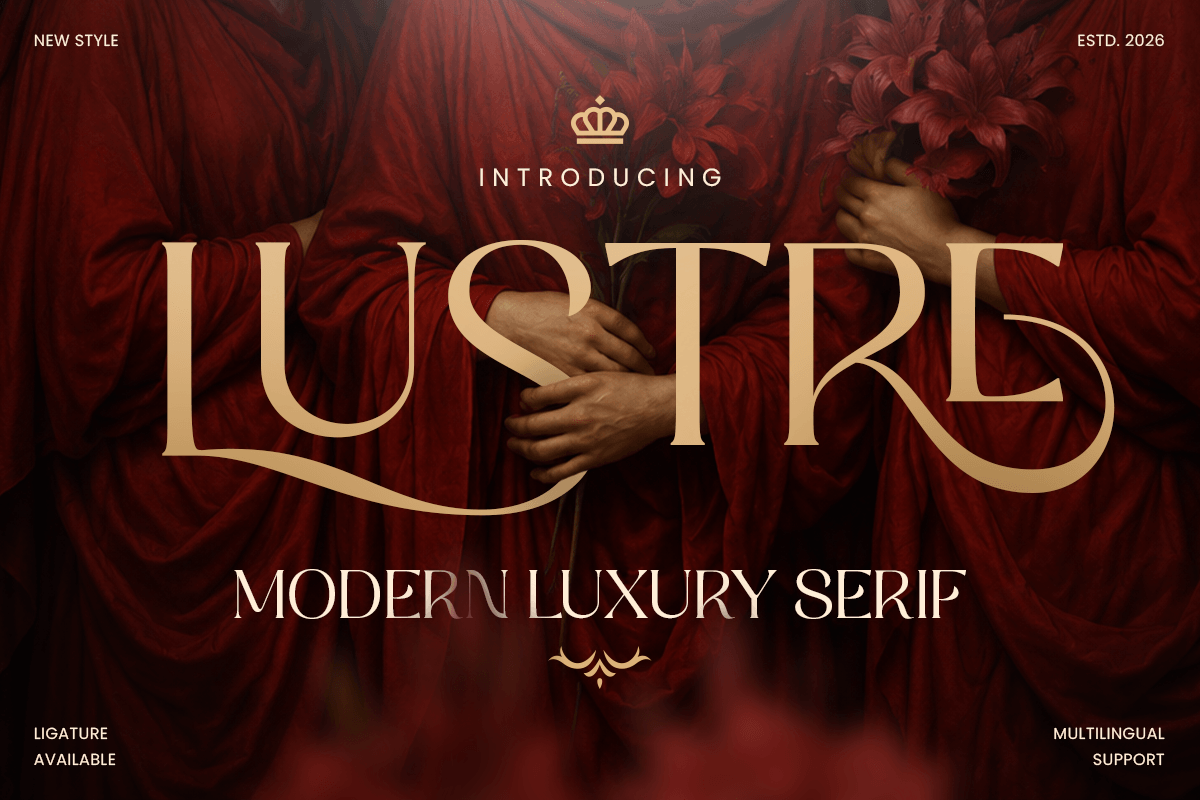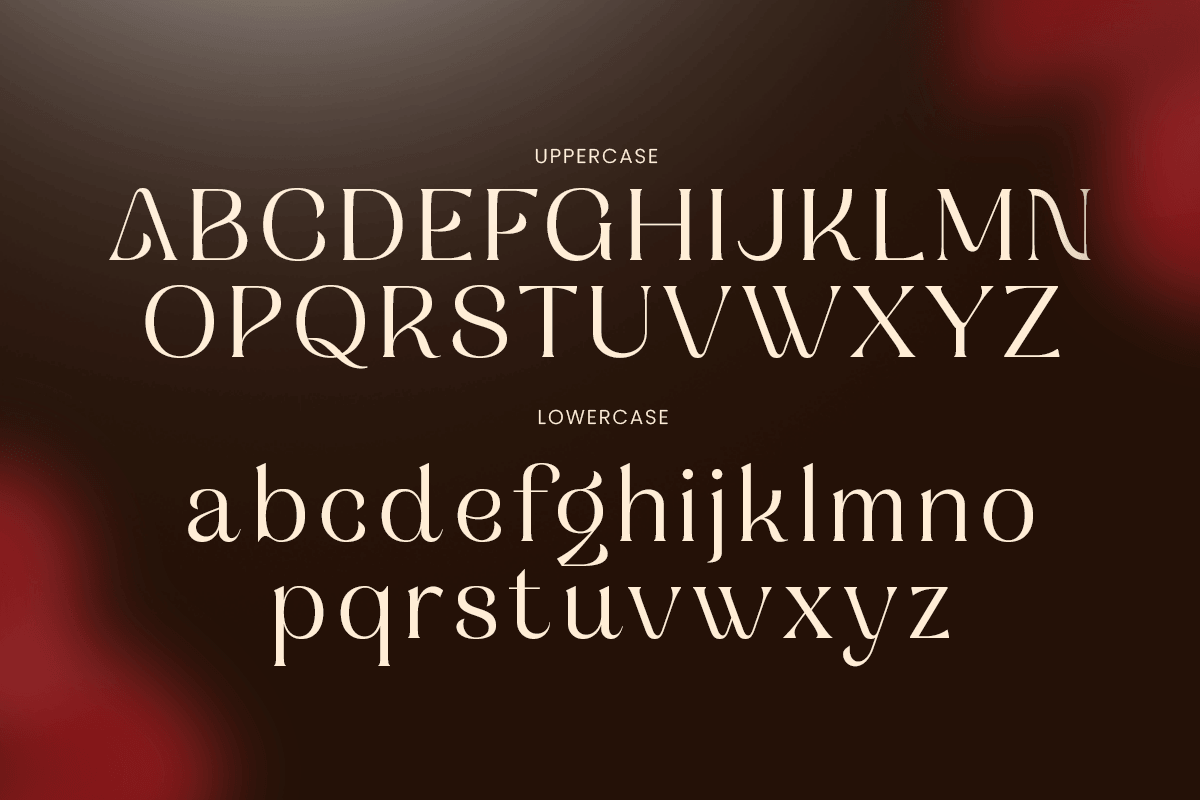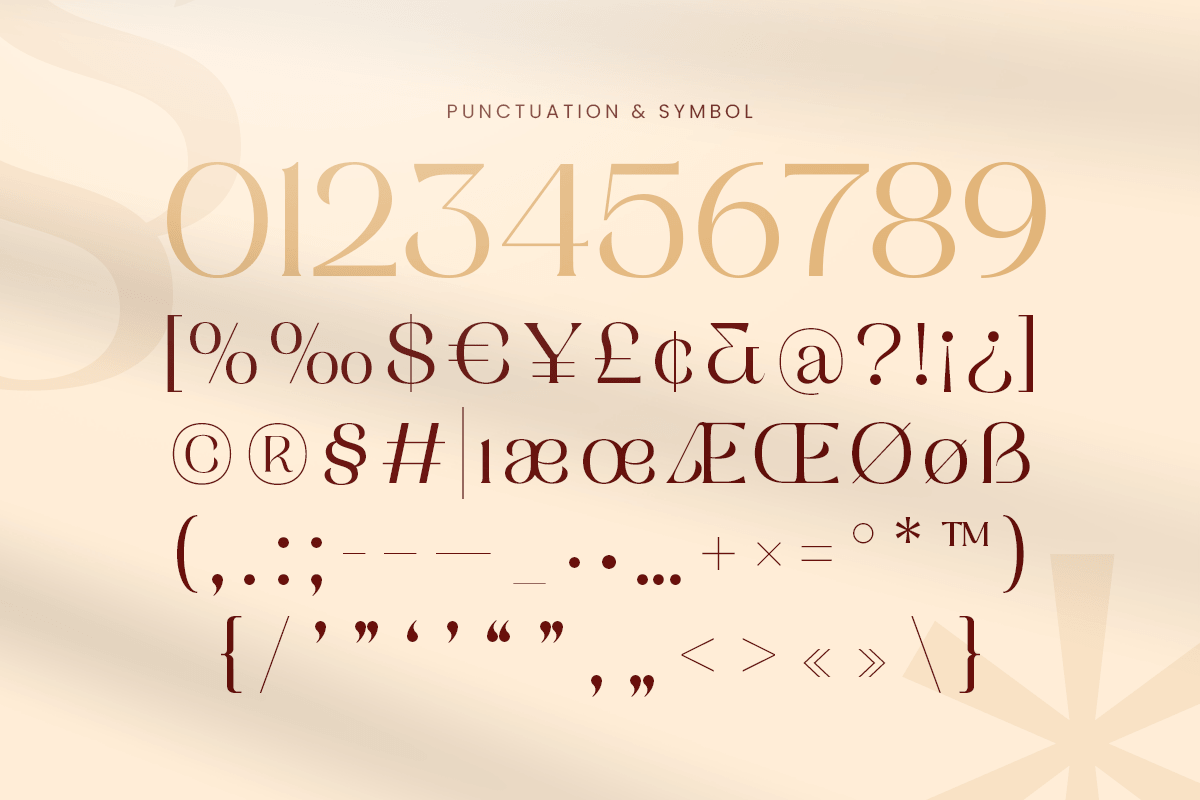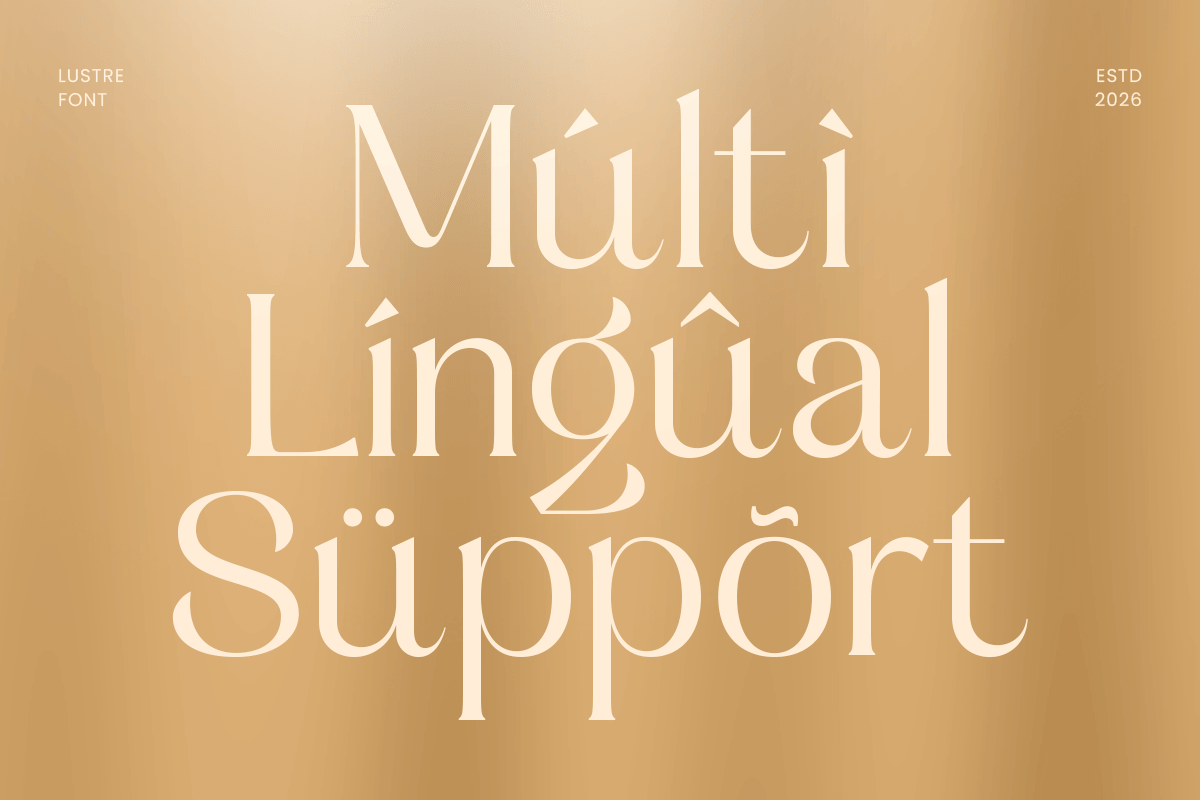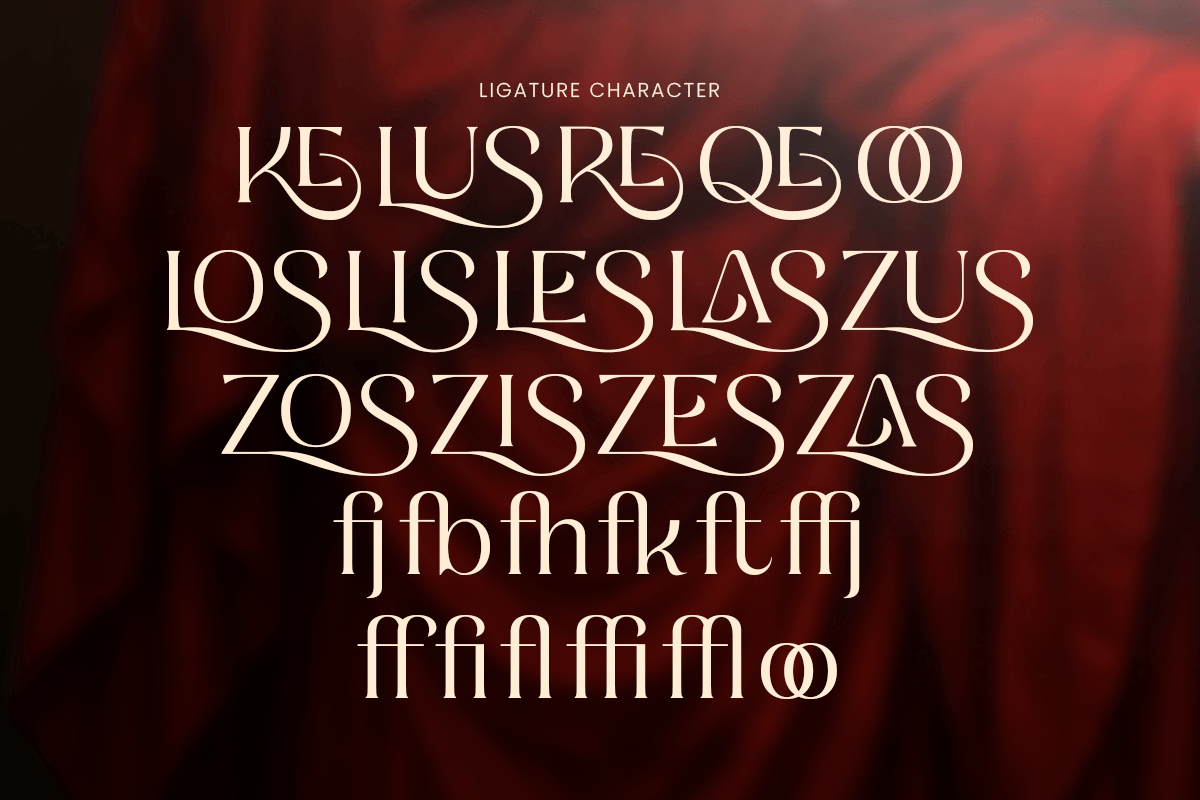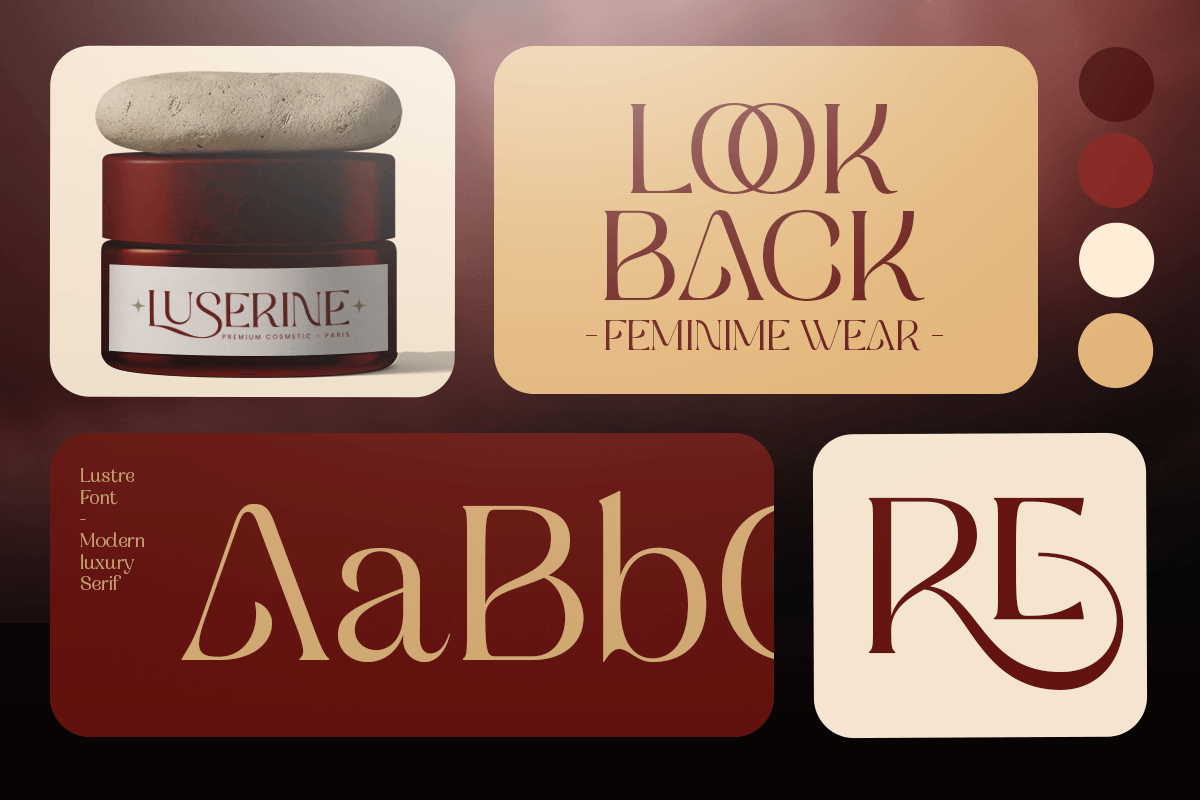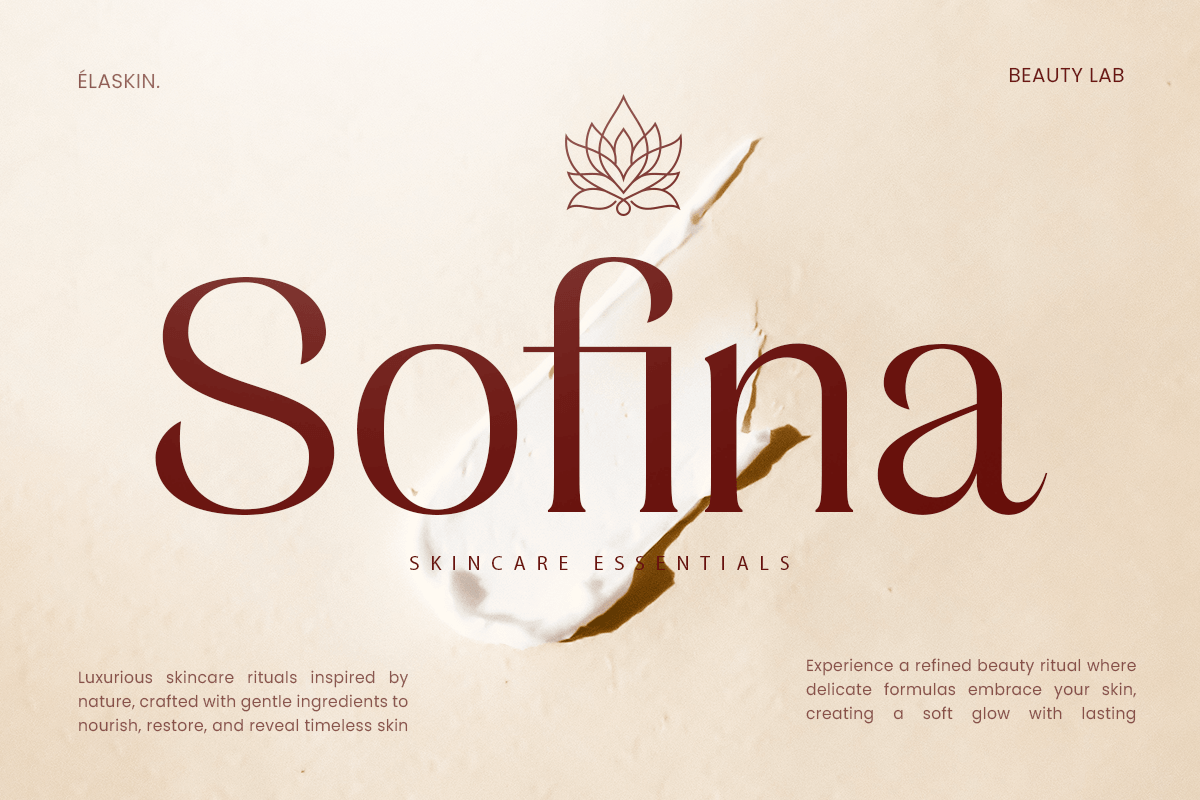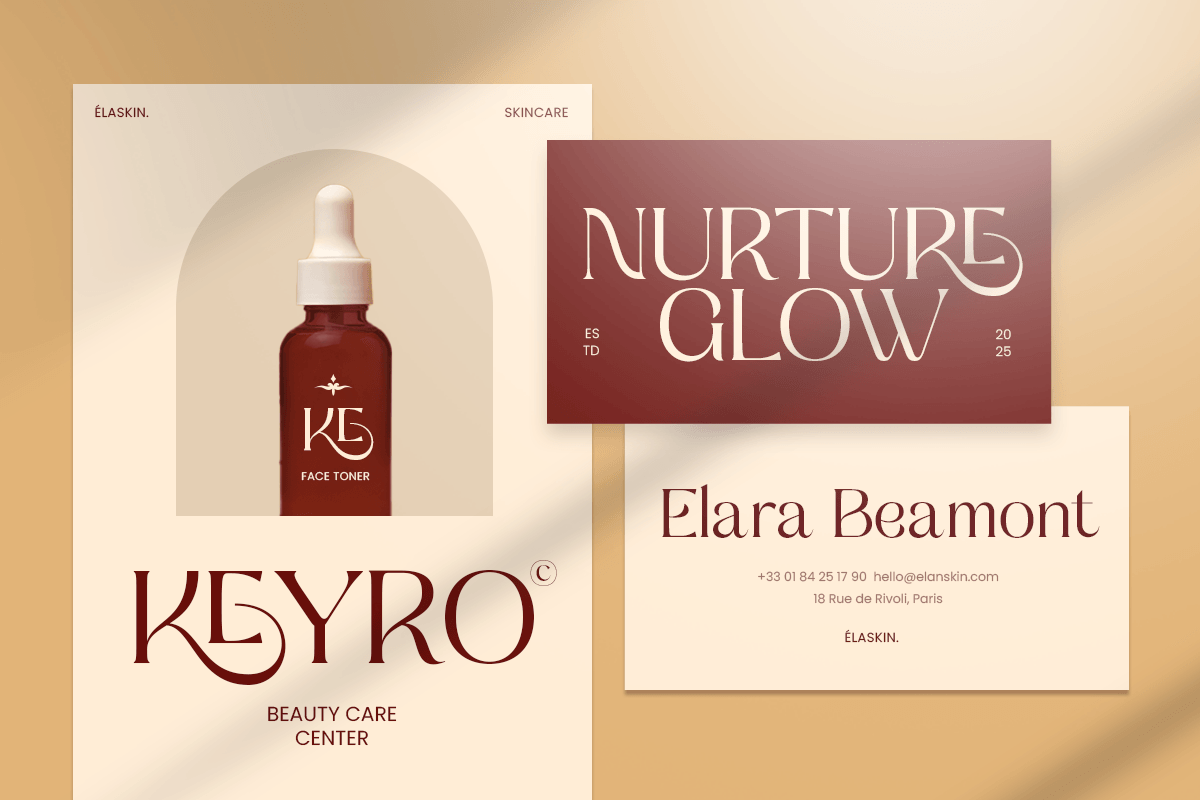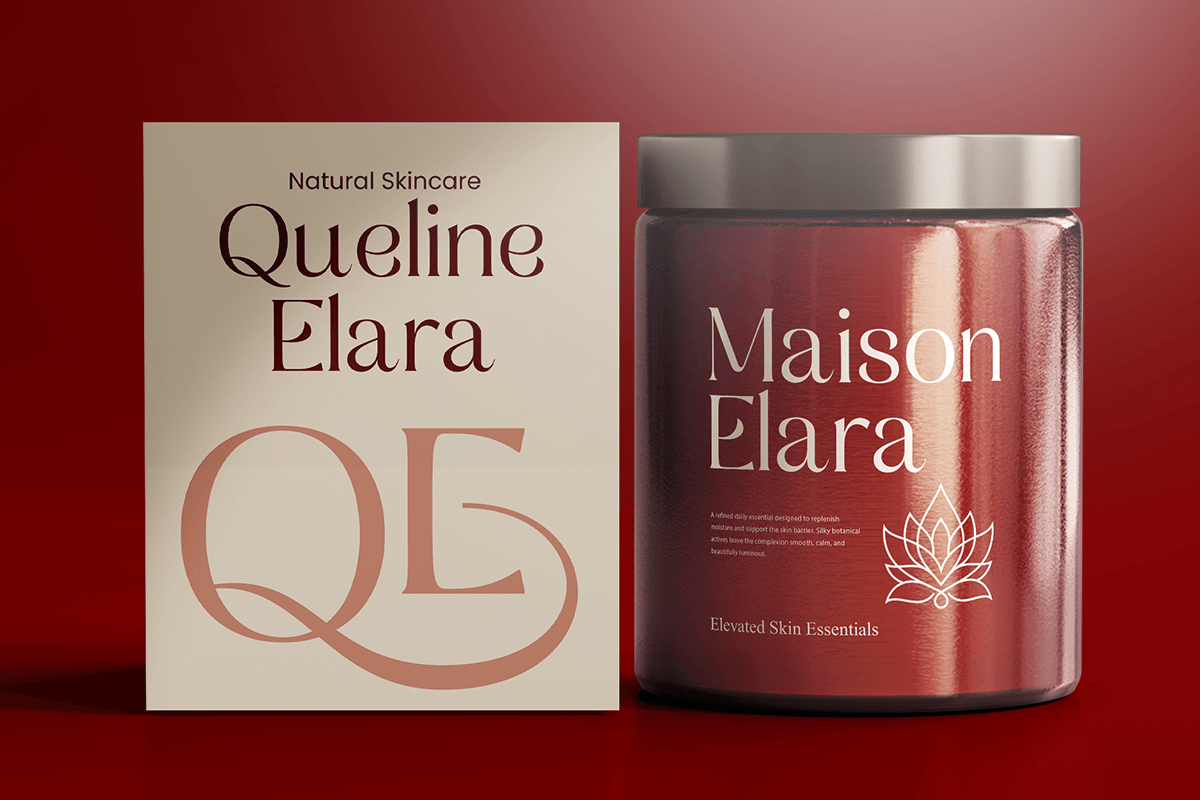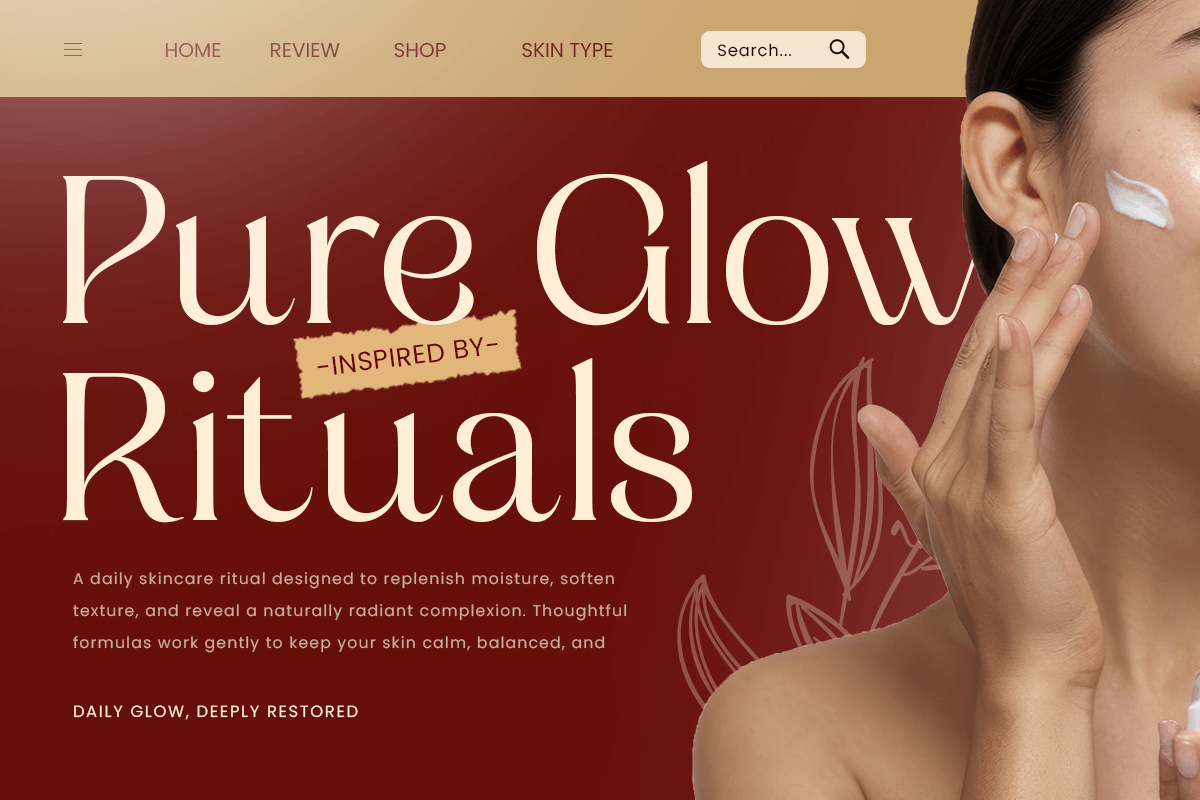
Lustre - Luxury Serif Font
Lustre is a Modern Luxury Serif Font that combines timeless elegance, sophistication, and contemporary style. With its refined serif details and graceful letterforms, Lustre creates a premium and stylish appearance, making it the perfect choice for luxury and high-end designs.
Lustre is perfect for all your favorite projects, including luxury logos, branding, fashion designs, editorial layouts, magazines, packaging, invitations, beauty products, advertisements, and more. Add it to your creative projects and create elegant, memorable, and sophisticated designs with Lustre!